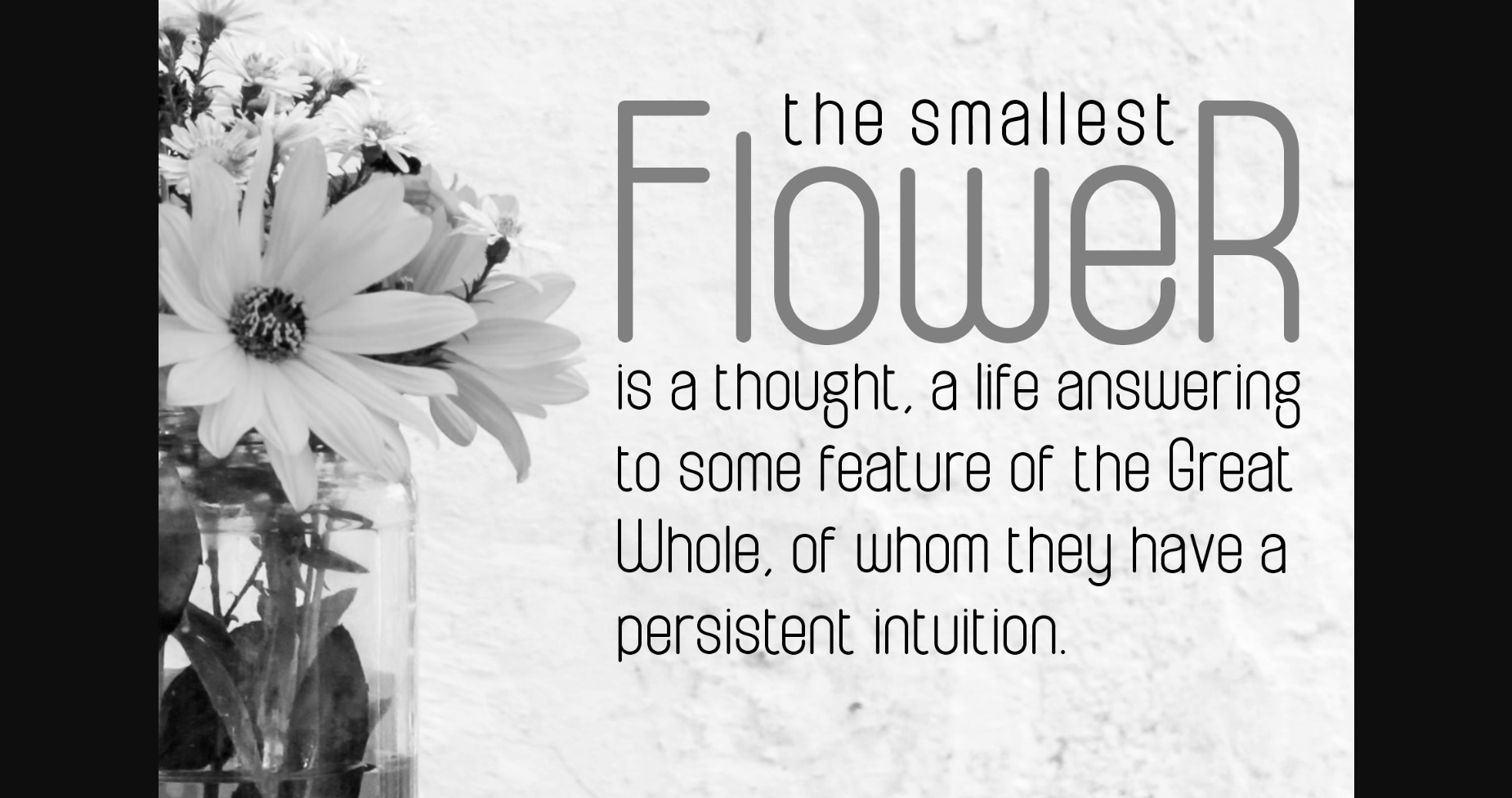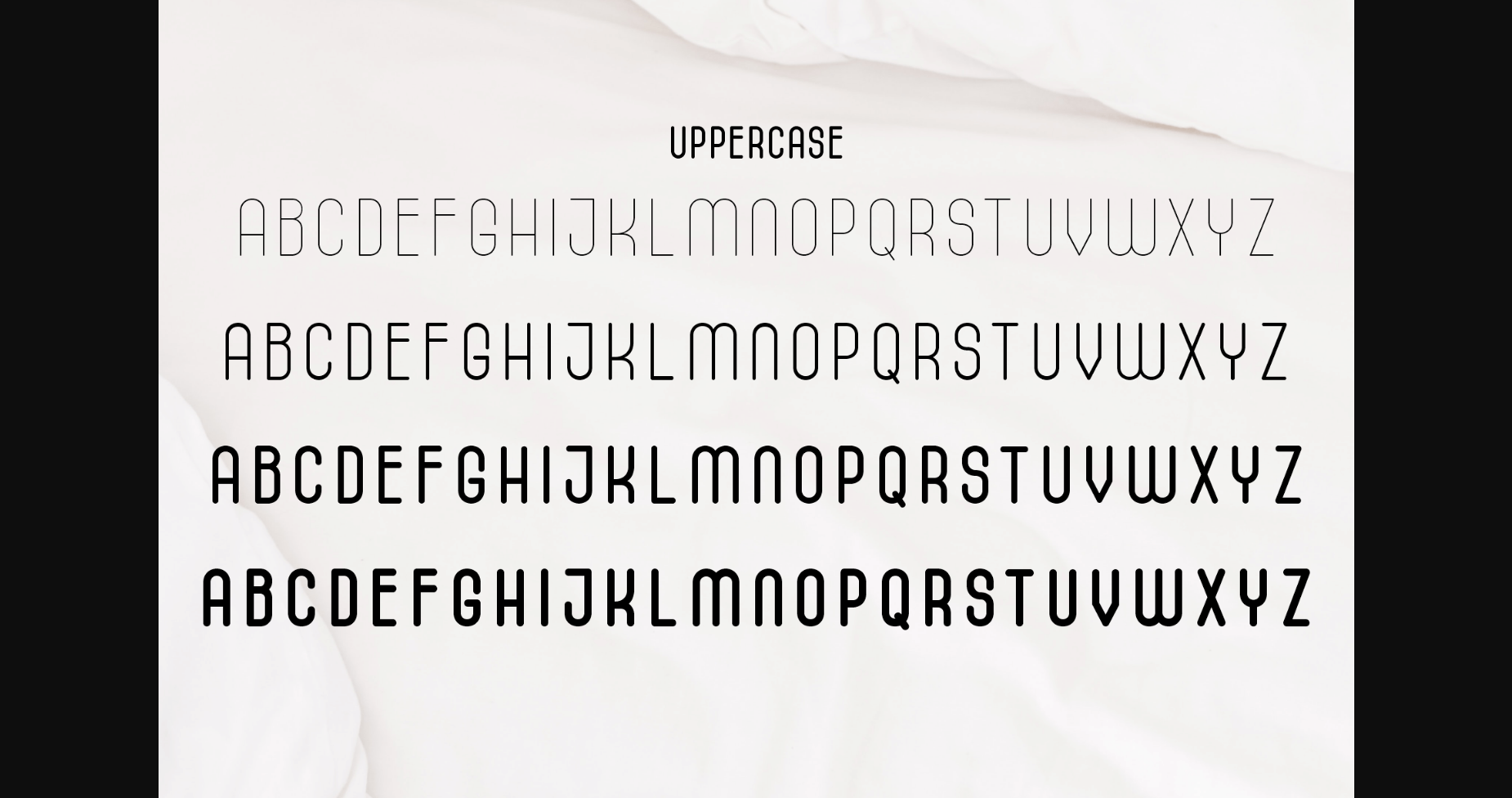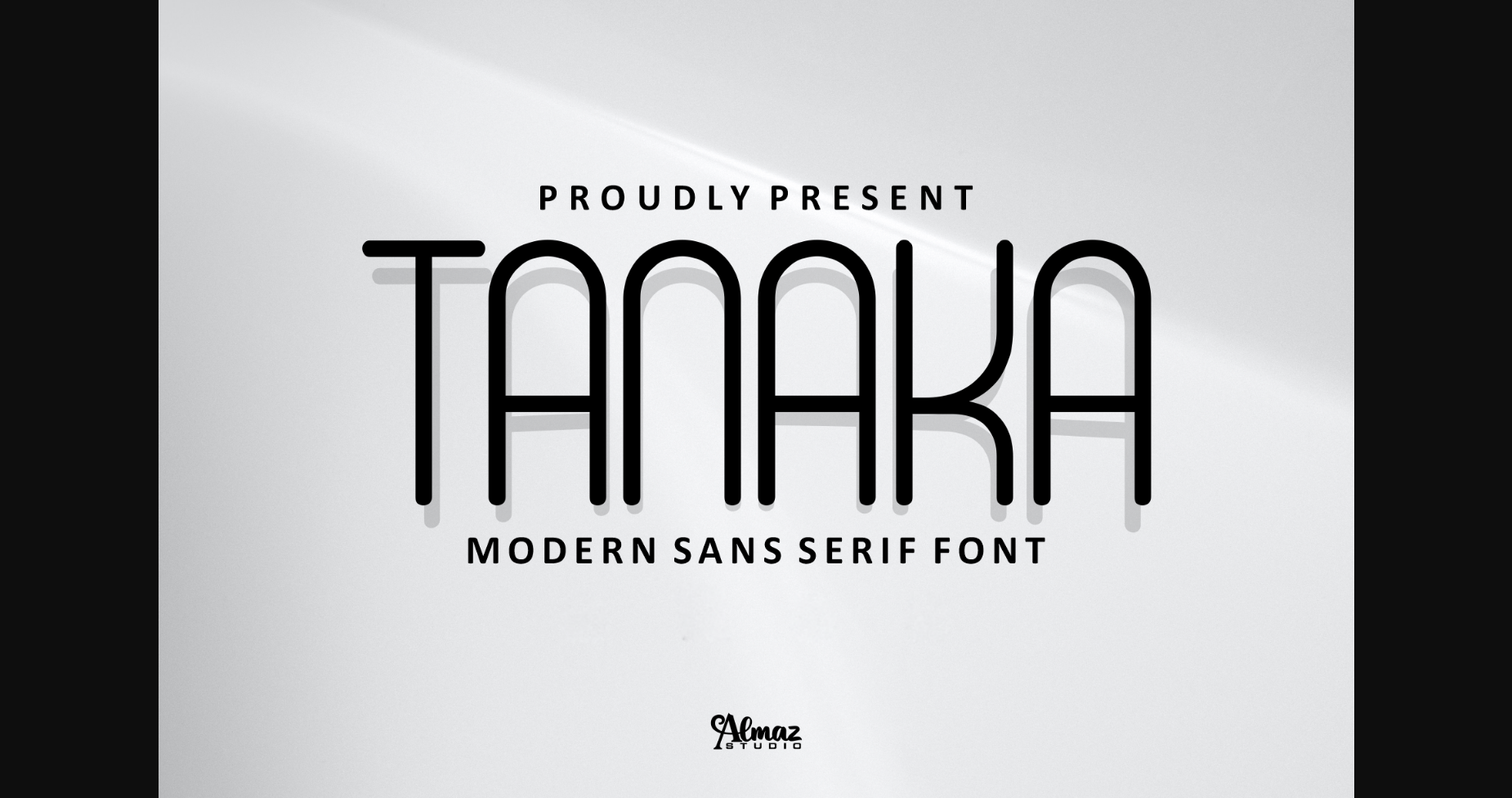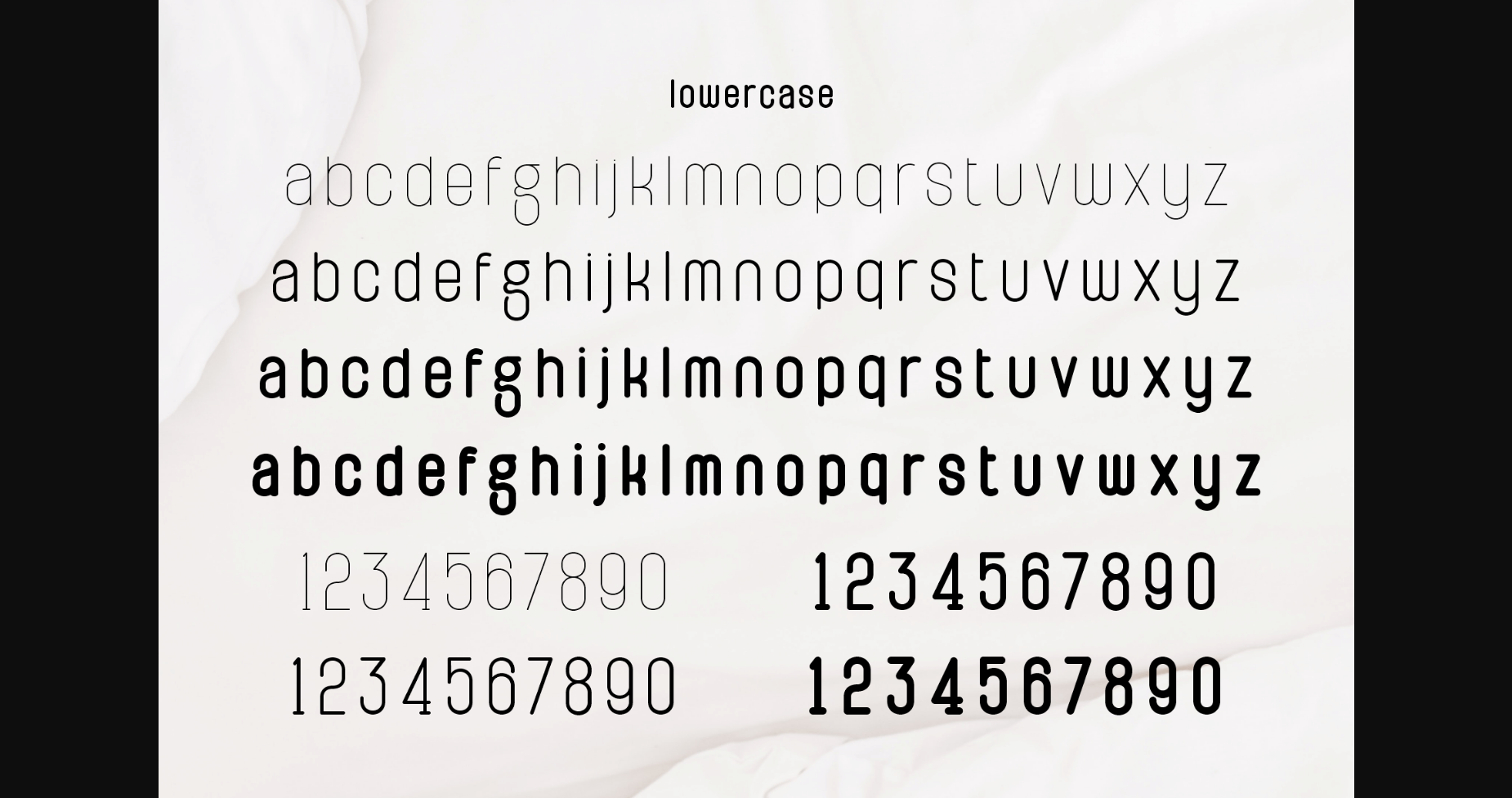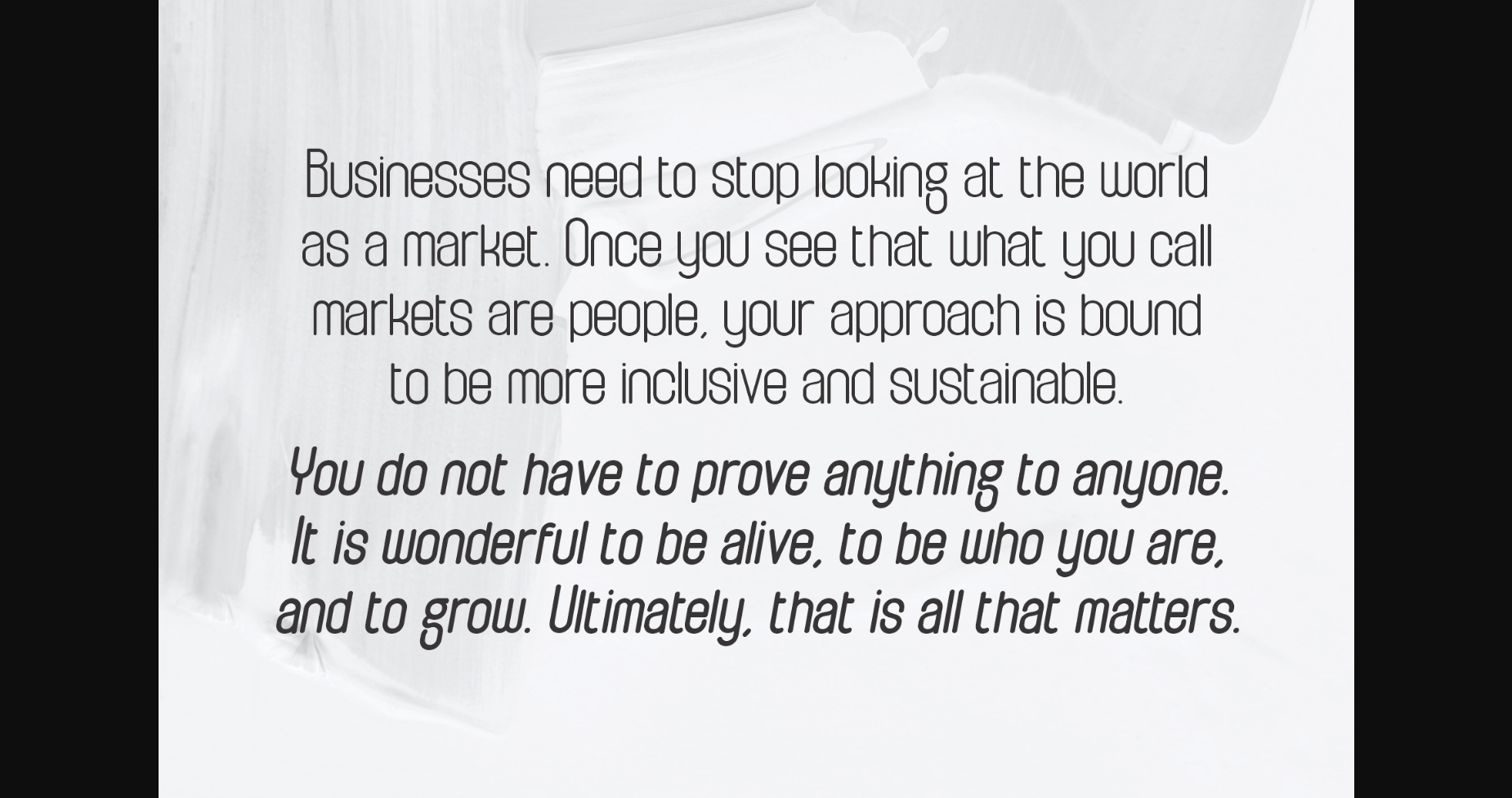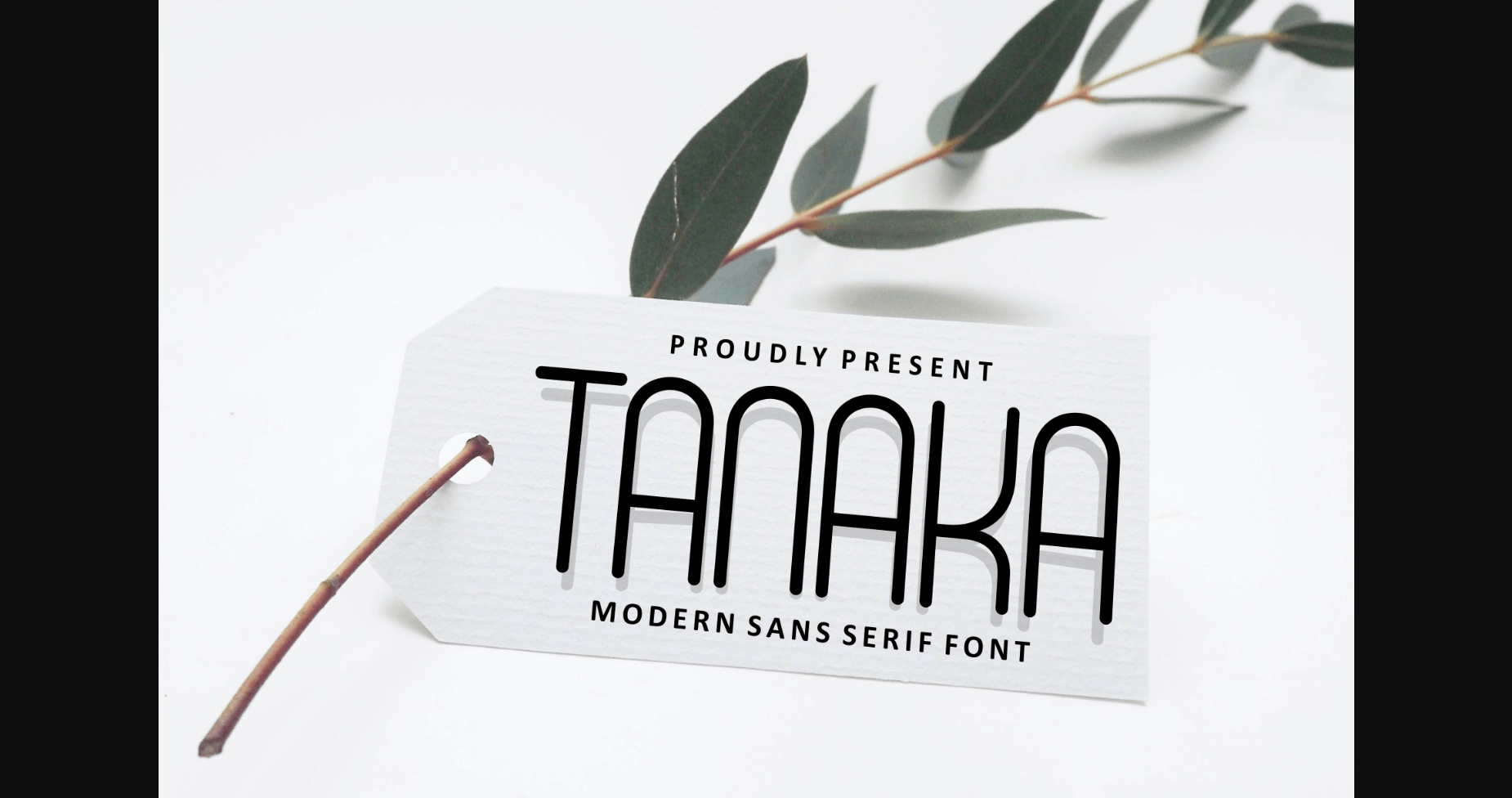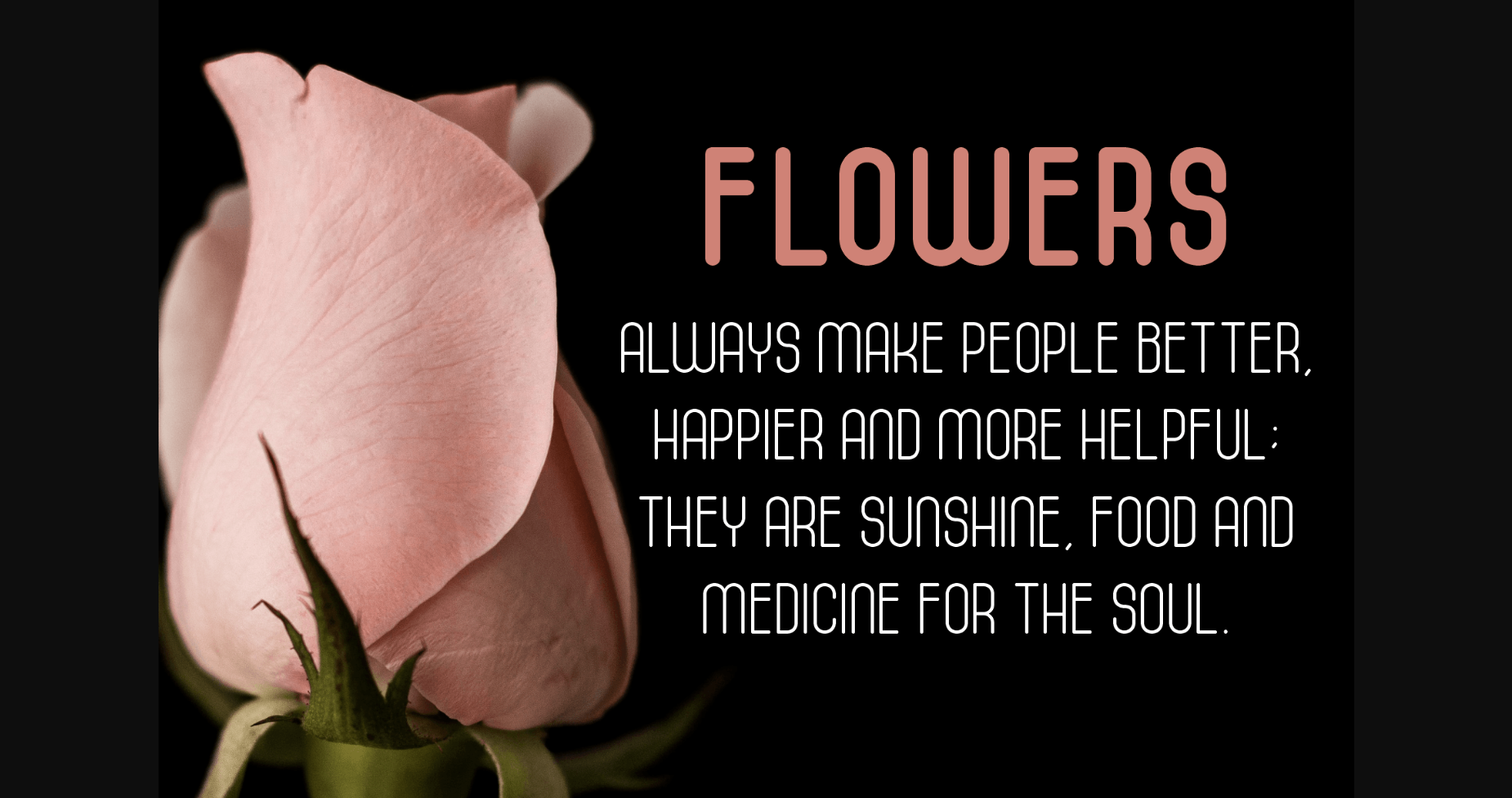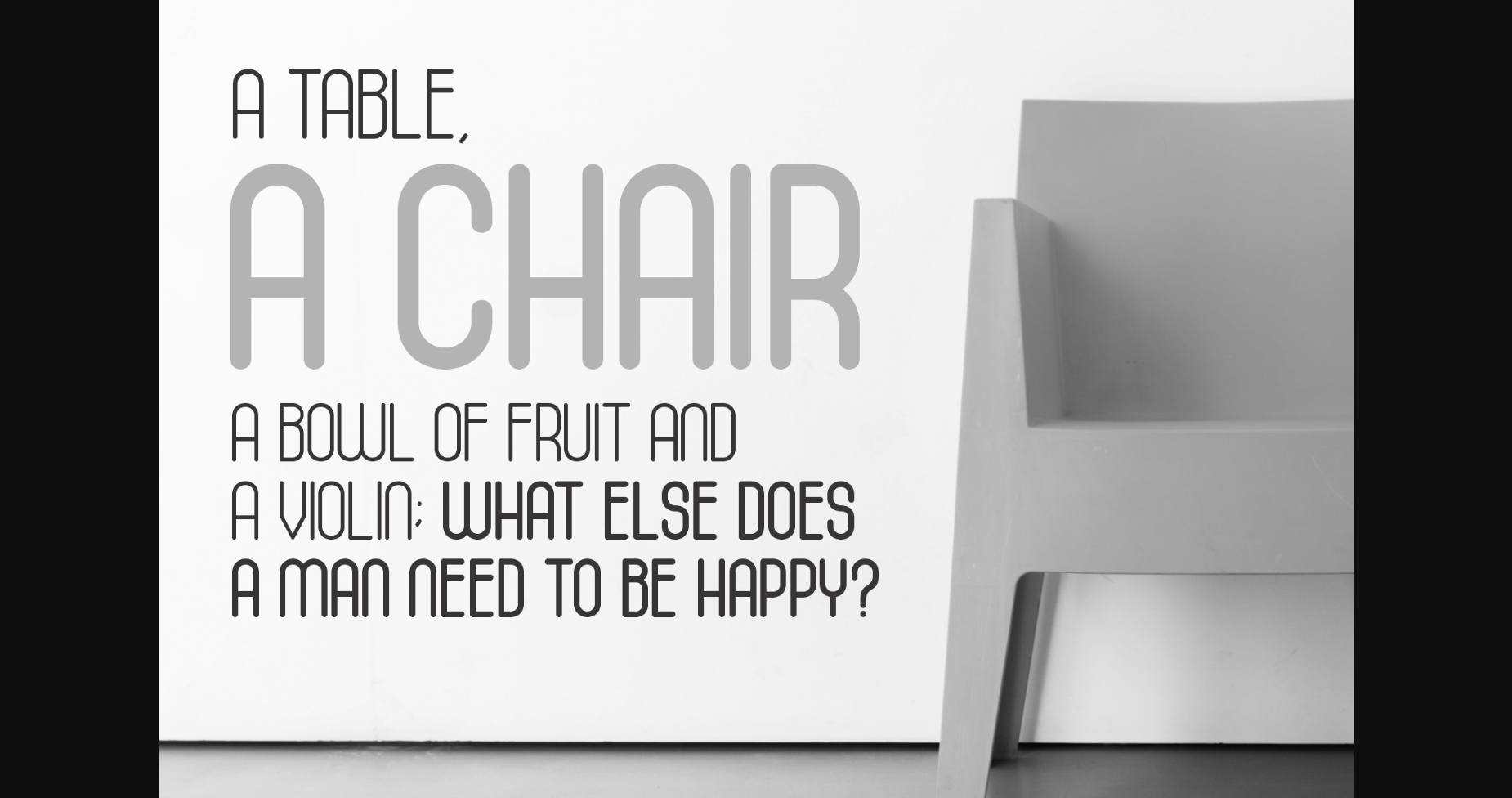
Tanaka Font
About Tanaka Font
Tanaka is a simple and narrow-lettered sans serif font. A contemporary typeface with a minimalist and modern approach. Use it to create posters, web graphics, game graphics, t-shirts, videos, signs, eBooks, logos, and more.
Tanaka is a unique and breathtaking monospace font, perfect for a wide variety of designs. No matter the topic, this font will be an incredible asset to your fonts’ library, as it has the potential to elevate any creation. Its condensed design makes it very effective for space economizing, and its display features make it a very interesting option for display usage.
It has been conceived to be most suitable for headlines and short-length text blocks.